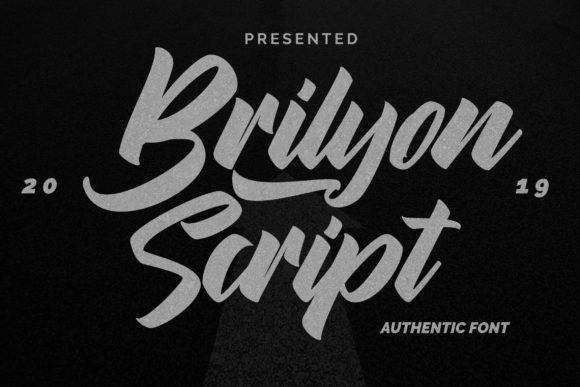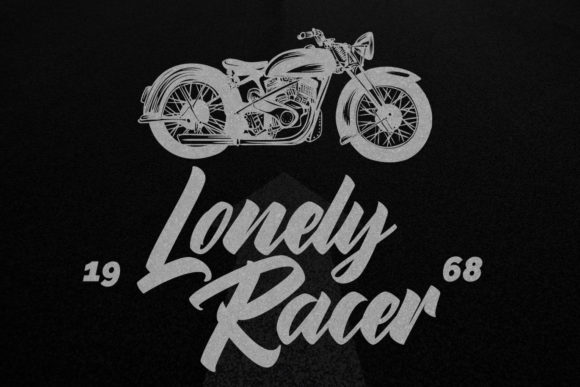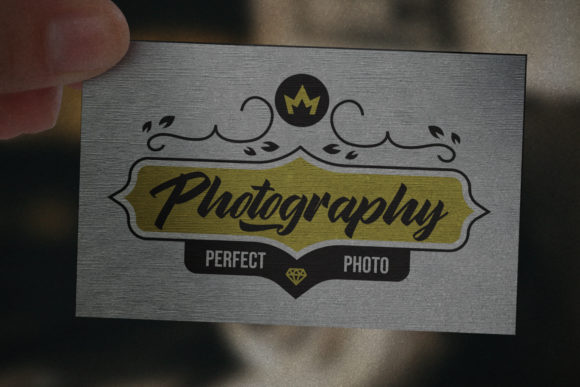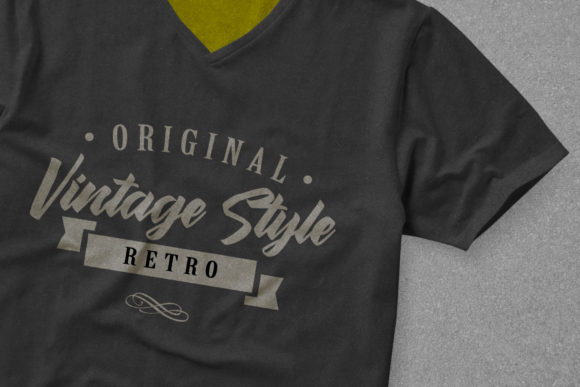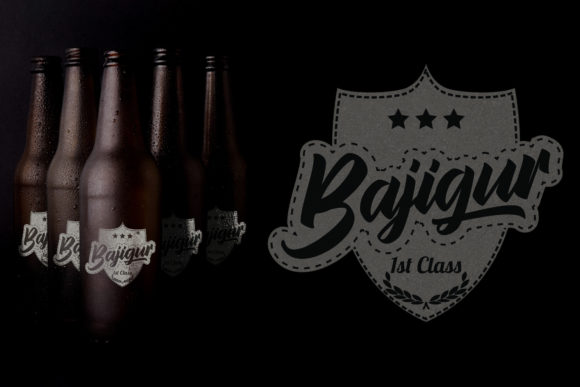
HomeScript FontsBrylion Script Font Script Fonts Brylion Script Font FacebookXPinterestWhatsApp Brylion Script Font Poster 2 Brylion Script Font Poster 3 Brylion Script Font Poster 4 Brylion Script Font Poster 5 About Brylion Script Font Brylion is a sweet and cool handwritten font with an incredibly authentic vibe. DOWNLOAD NOW People also explored Milston Font Bear Font Zikkalya Font Happy New Year Font Sweet Almond Benthura Script Font Making Halloween Font Rotterdam Font Winter Vintage Font 281 0 TagsBrylion Script Font Previous articleMandala FontNext articleOuttmar Font LEAVE A REPLY Cancel reply Comment: Please enter your comment! Name:* Please enter your name here Email:* You have entered an incorrect email address! Please enter your email address here Website: Save my name, email, and website in this browser for the next time I comment. Personal Use Free Hearted Personal Use Free Read more about this font Dead Block Personal Use Free Read more about this font Electroharmonix Personal Use Free Read more about this font Kids Toys Personal Use Free Read more about this font BLOG Free vs Paid Fonts: Why Investing in Premium Fonts Is Worth It Free vs Paid Fonts: Why Premium Fonts Are Worth It in 2025 The debate of free vs paid fonts continues in the design world. While... Where to Buy American Fonts Online in 2024 Best Fonts for T-Shirt Design – Top 2025 Picks Top 7 Google Fonts Alternatives for Faster and Privacy-Friendly Web Design (2025)